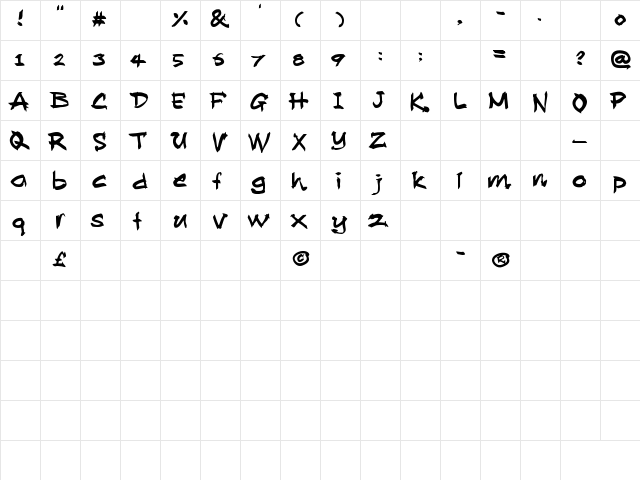
Allan Rooster Regular Font Preview
Allan Rooster Regular
Allan Rooster Regular Font Details
| Designer | RODI DE ASIS |
Design Context for Allan Rooster Typeface
Allan Rooster is a composed and adaptable typeface that performs quietly and consistently across a wide range of design contexts.